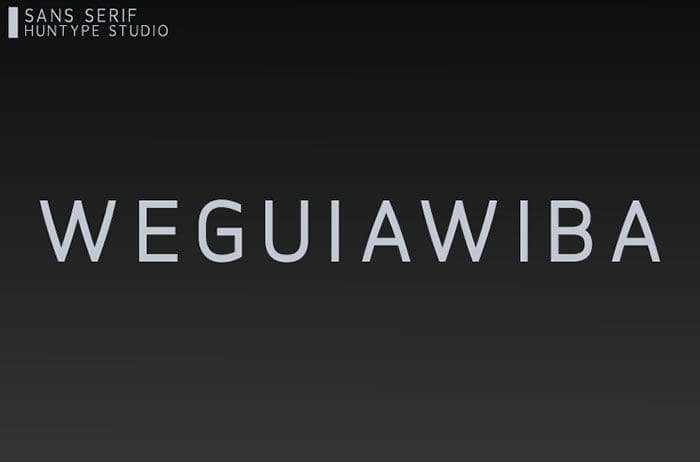
Weguiawiba Sans Serif Font
Weguiawiba is an all caps geometric sans serif font typeface. Weguiawiba will look outstanding in any context, whether it’s being used on busy backgrounds or as a standalone headline! Thanks to Mas Anis for sharing this font! Take a look at this portfolio for more of his stunning fonts.